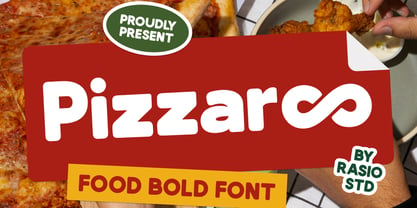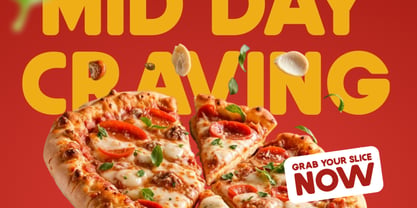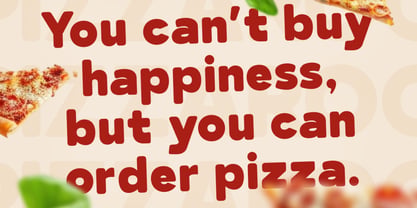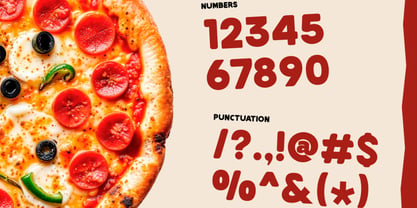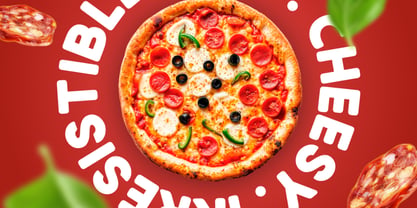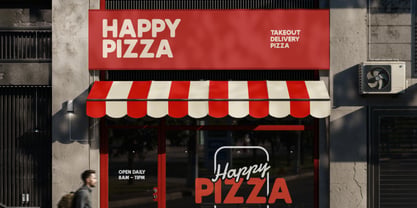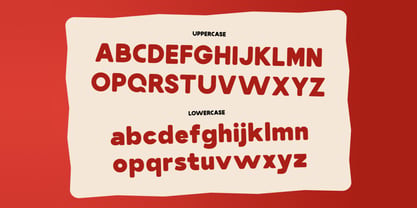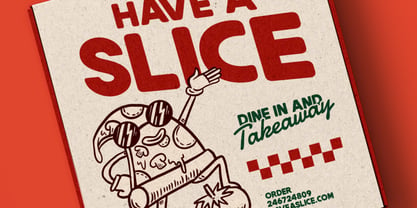
Pizzaroo
by Rasio Studio
The Pizzaroo Font Family was designed by Fajar Indra and published by Rasio Studio. Pizzaroo contains 1 styles. More about this family
Pizzaro is a bold food-themed font with a playful and rounded style that instantly grabs attention. Inspired by comfort food and cheerful energy, this font is ideal for food packaging, restaurant branding, kids menus, and fun advertising materials. Relevance and Uses Case is perfect for casual appearance make it friendly and versatile for various branding needs, from pizza parlors and snack brands to bold merchandise and social media visuals. Designed to be fun and approachable, Pizzaro is the perfect font for injecting personality and flavor into your design.
Designers: Fajar Indra
Foundry: Rasio Studio